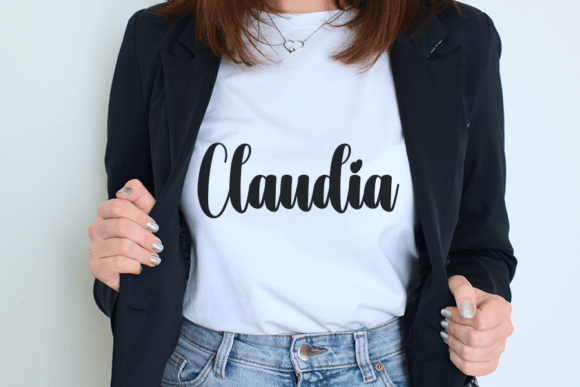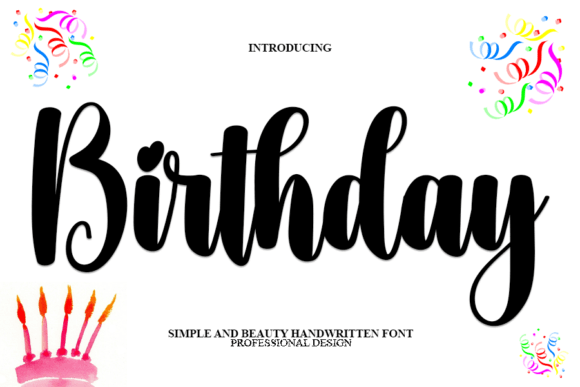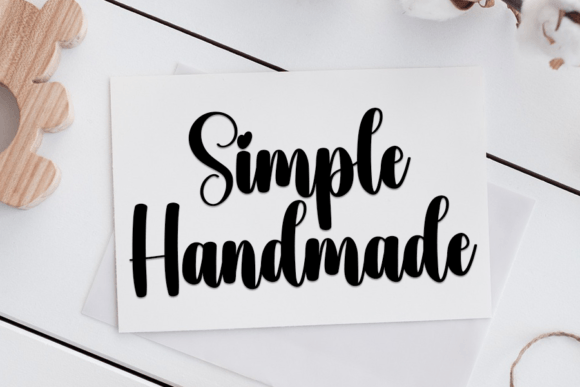
Birthday Font: A Cute Handwritten Font for DIY & Cricut Projects
About the Birthday Font
The Birthday Font offers a perfect balance of form and function for your design needs. Birthday is a delicate handwritten font carefully crafted for a cool and unique design. This font can be used to write letters, invitations, food products, titles, and more.
Birthday Font Usage Examples